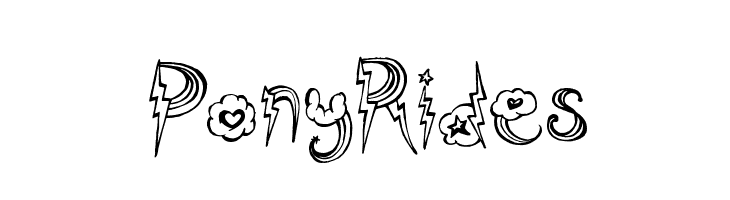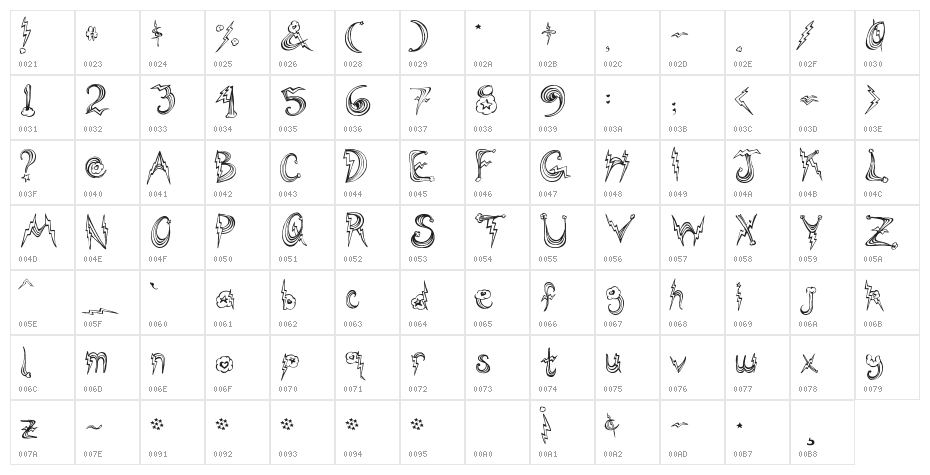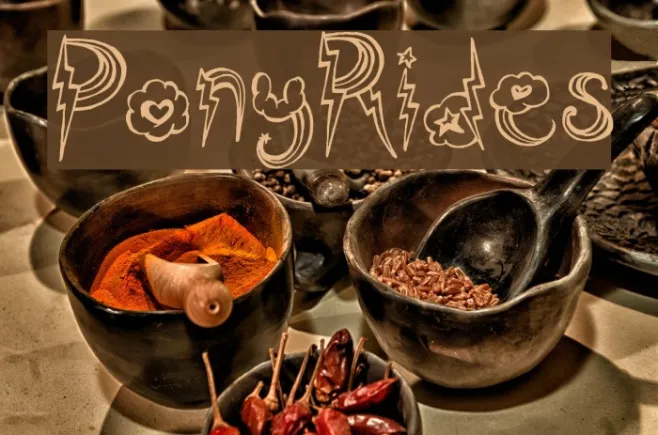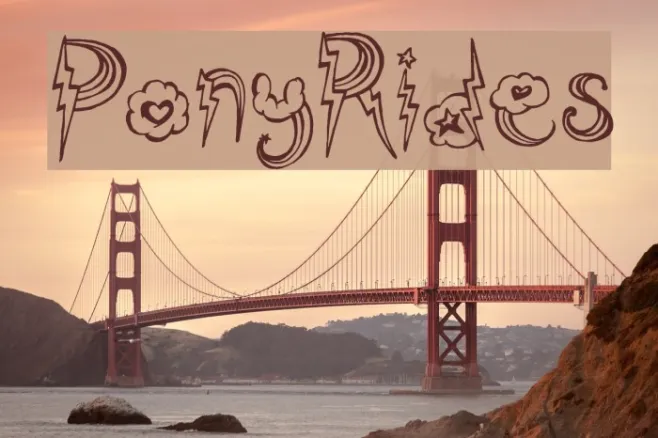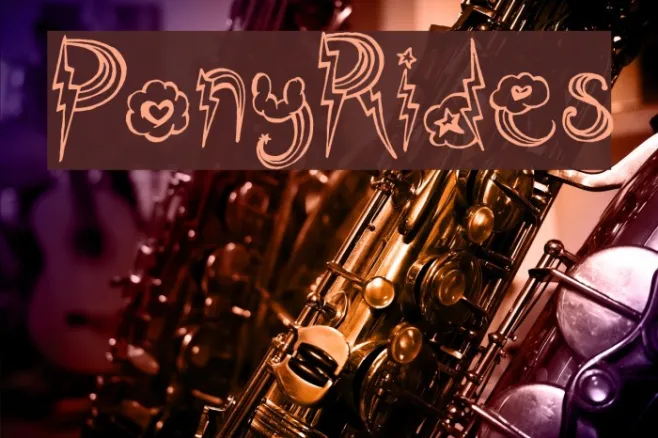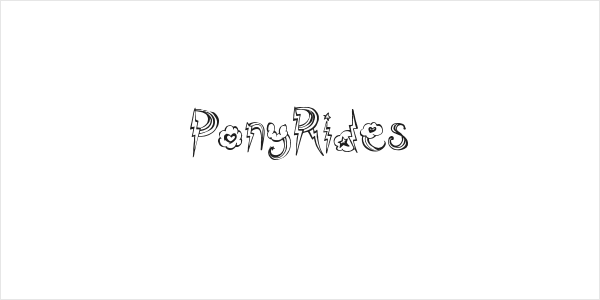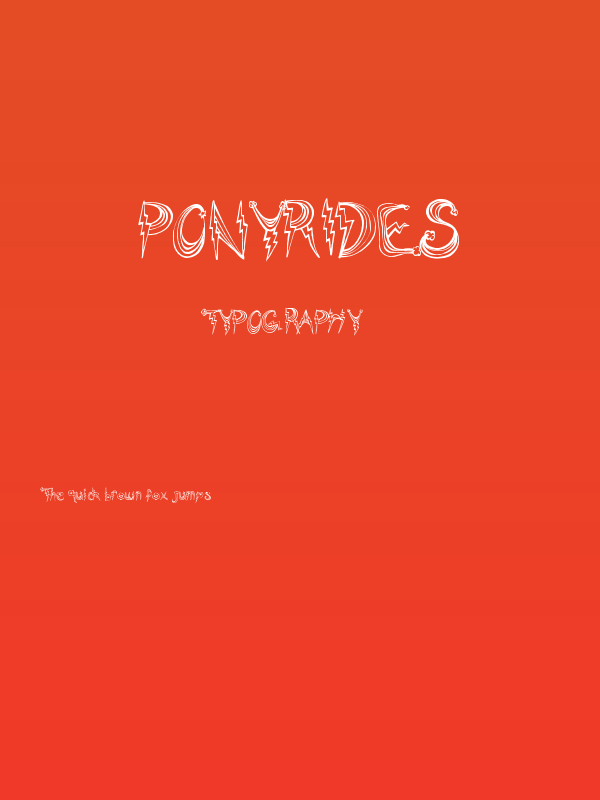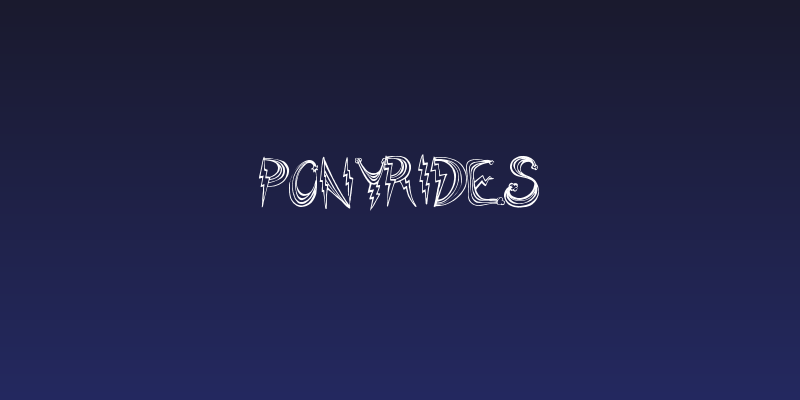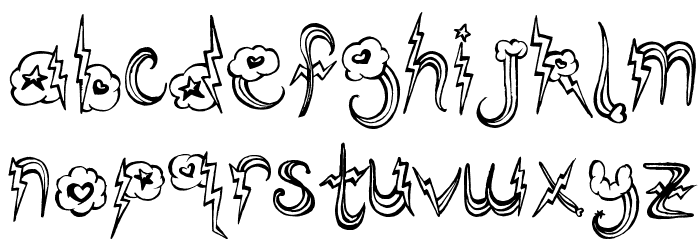
PonyRides Font
PonyRides Description
This font is a highly decorative and playful typeface that features a mix of whimsical and bold elements. Each character is uniquely designed with dynamic shapes and embellishments, such as stars, lightning bolts, and swirls, creating a sense of movement and energy. The uppercase letters are particularly striking, with exaggerated forms and intricate details. The lowercase letters maintain the playful theme with similar embellishments. Numbers and special characters are equally creative, adding to the overall eclectic style. This font is perfect for projects that require a fun and eye-catching design.
Proposed ProjectsIdeal for children's book covers, party invitations, comic book titles, and playful branding.